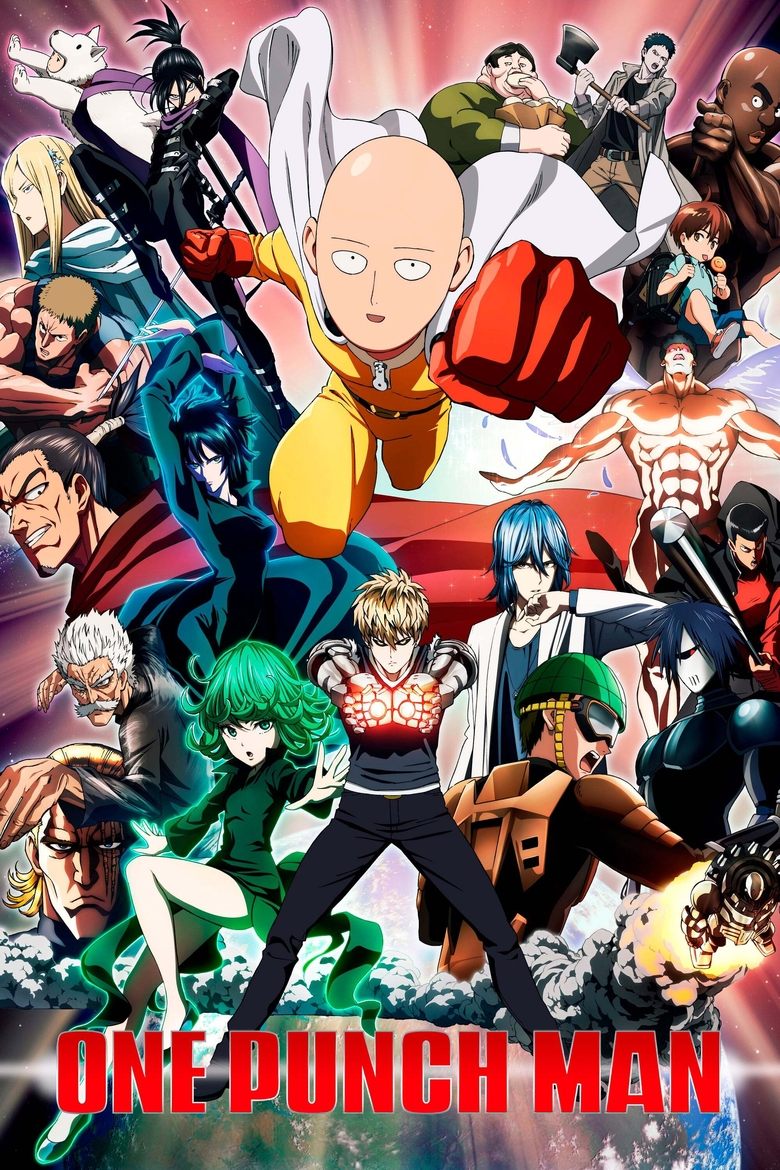
About the One-Punch Man font
One-Punch Man's title is heavy and impactful. Black Ops One delivers that same one-hit, hero impact.
What font is used in the One-Punch Man logo?+
The original One-Punch Man logo uses custom lettering. This generator recreates the look with Black Ops One — a free, open-license font you can style and download.